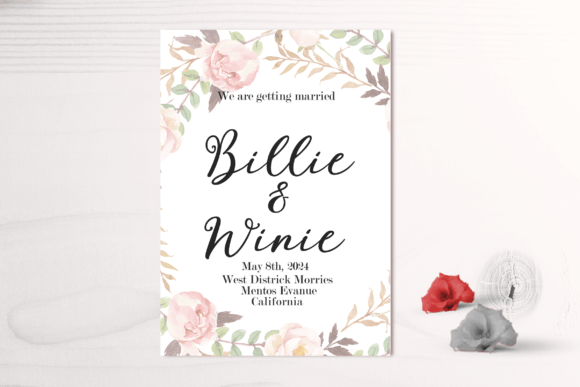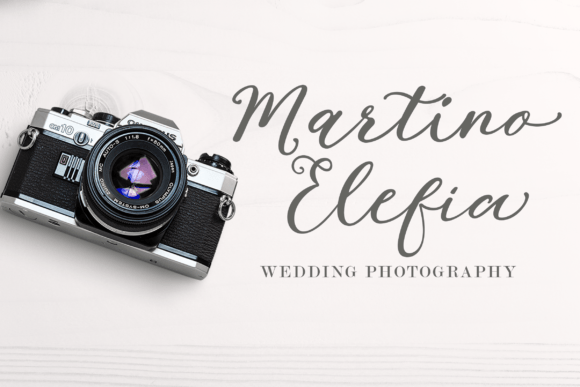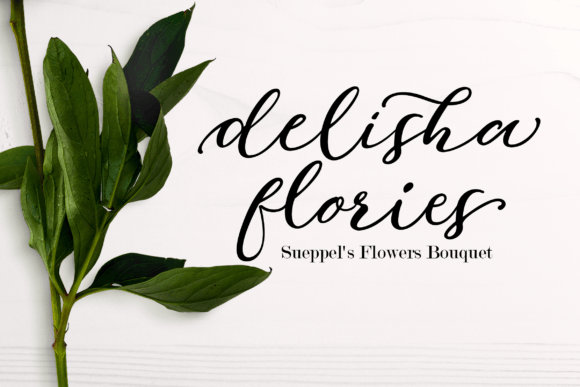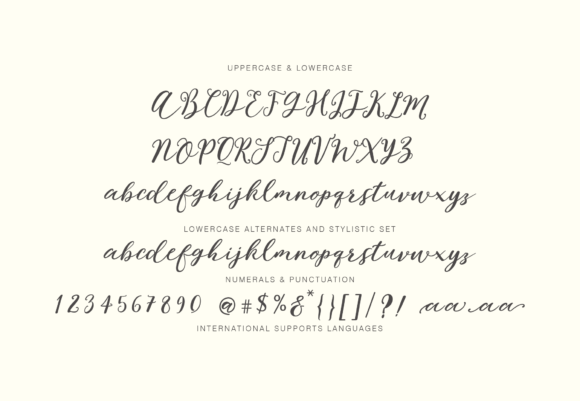
Introduction to Hey Jamila Font
Have you ever found yourself stuck in a creative rut, staring blankly at a blank page, searching for the perfect font to bring your idea to life? I’m sure we’ve all been there at some point or another. But what if I told you that there’s a font that can breathe new life into your designs and make your text look like a work of art? Enter the stunning Hey Jamila Font, a modern calligraphy script font that’s sure to elevate your creative project to the next level.
With its high-quality design and transparent background, this font is a game-changer for designers looking for a versatile and reliable design resource. Whether you’re working on a fashion brand, a wedding invitation, or a simple blog header, Hey Jamila Font is sure to impress. And the best part? It’s available for free download, making it an accessible and valuable resource for designers of all levels.
Key Features of Hey Jamila Font
- High-quality font design with a modern and elegant style, perfect for creative projects.
- Features a transparent background, making it ideal for use on any design resource or creative project.
- Designed with a clean and minimalist aesthetic, making it perfect for use in logos, branding, and typography.
Honest Review: Hey Jamila Font
I recently had the chance to work with the Hey Jamila Font, and I’m excited to share my thoughts on this design resource.
- ✨ The high-quality design ensures that the font looks great on any project, from business cards to signage.
- ✨ The transparent background makes it easy to integrate with any design element.
- ⚠️ The font is limited to a specific style, which may not be suitable for every creative project.
- ⚠️ Some users have reported issues with the font’s scalability, which can be a problem for large designs.
Overall, I was impressed with the Hey Jamila Font’s unique design and high-quality construction. While it may not be the best choice for every project, it’s definitely a valuable design resource to have in your toolkit.
Yes, the Hey Jamila Font supports transparent backgrounds, making it an ideal design resource for creative projects that require a seamless integration with images or other design elements.